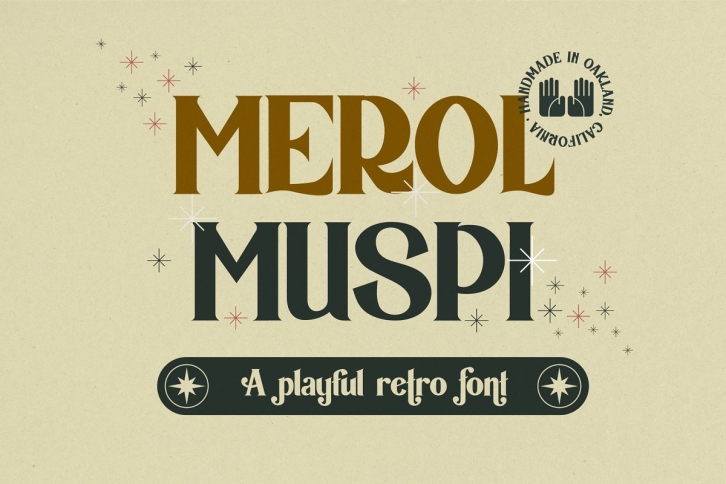
Merol Muspi is a fun handmade retro font by Holt510. It includes a full set of letters and numbers, multiple alternate letters, and select punctuation and special characters. This font is a lot of fun to use for headlines, titles, and branding projects. It is packed full of personality. Merol Muspi looks great in all caps, titlecase or lowercase.